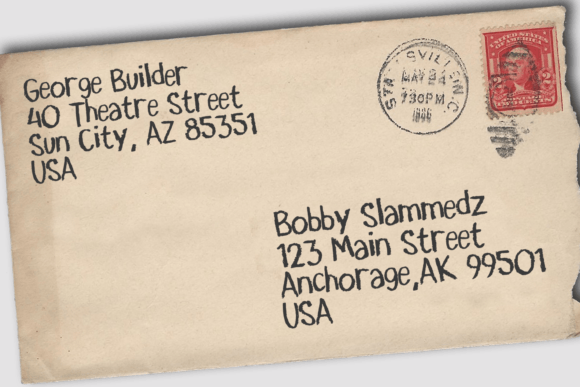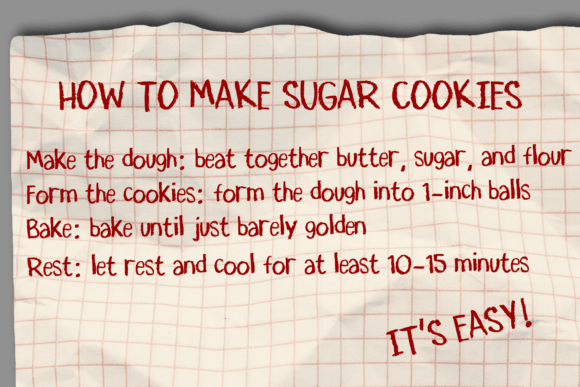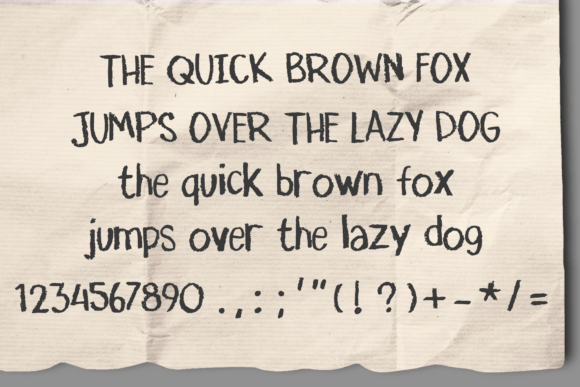
Introducing Graphite Pencil Font: Add a Touch of Whimsy to Your Designs
Are you tired of using the same old fonts in your designs? Look no further than the Graphite Pencil Font, a fun and handwritten font that adds a touch of whimsy to any project. With its unique pencil or graphite texture, this font is perfect for designers and crafters who want to add a casual and playful touch to their work.
The Versatility of Graphite Pencil Font
One of the best things about the Graphite Pencil Font is its incredible versatility. Whether you’re designing a t-shirt, book, packaging, greeting card, sticker, or poster, this font is sure to be a great fit. Its casual and handwritten style makes it perfect for projects that require a personal touch, and its graphite texture adds a unique and eye-catching element.
With the Graphite Pencil Font, the design possibilities are endless. Imagine using it to create:
- A playful and eye-catching t-shirt design for a kids’ clothing brand
- A charming and whimsical book cover for a children’s storybook
- A unique and personalized greeting card for a special occasion
- A fun and colorful sticker design for a craft project
- A bold and eye-catching poster design for a concert or event
Why Choose Graphite Pencil Font?
So why choose the Graphite Pencil Font over other fonts? Here are just a few reasons:
- Unique texture: The graphite texture of this font adds a unique and eye-catching element to any design
- Versatility: This font can be used for a wide range of projects, from casual to formal
- Playful style: The handwritten style of this font adds a playful and whimsical touch to any design
- Easy to read: Despite its playful style, this font is easy to read and understand
Tips for Using Graphite Pencil Font
Here are a few tips for getting the most out of the Graphite Pencil Font:
- Experiment with colors: Try pairing the font with different colors to create a unique and eye-catching design
- Play with textures: Consider combining the graphite texture of the font with other textures to create a layered look
- Keep it simple: Don’t be afraid to keep the design simple and let the font be the star of the show
In conclusion, the Graphite Pencil Font is a fun and versatile font that’s perfect for designers and crafters who want to add a touch of whimsy to their work. With its unique graphite texture and playful handwritten style, this font is sure to be a great fit for a wide range of projects. So why not give it a try and see what amazing designs you can create?
Get Ready to Fall in Love with Graphite Pencil Font
With its incredibly versatile style and unique graphite texture, it’s easy to fall in love with the Graphite Pencil Font. Whether you’re a designer, crafter, or just someone who loves to create, this font is sure to become a favorite. So go ahead, give it a try, and see why it’s the perfect font for anyone who wants to add a little bit of whimsy to their designs.